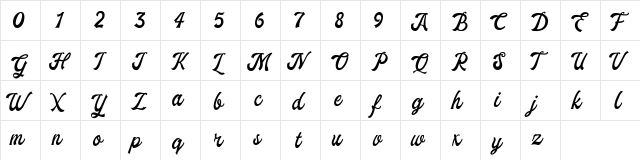
Ekshada Regular
Design Context for Ekshada Typeface
Ekshada is a composed and adaptable typeface that performs quietly and consistently across a wide range of design contexts.